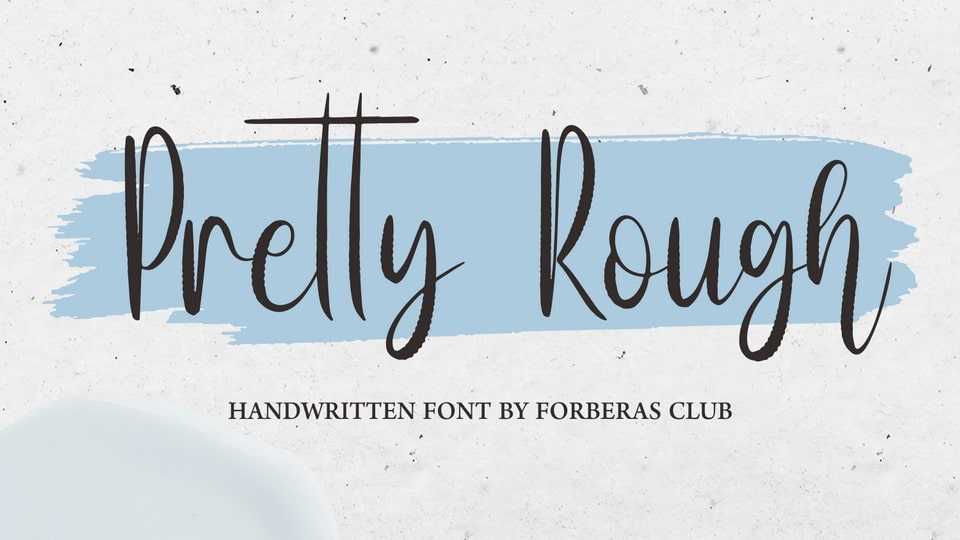
Download Pretty Rough font, a beautiful handwritten script typeface. It is perfect for various projects, such as blog posts, logos, branding, ads, invitations, greeting cards, planners, photo albums, decorations, and much more.